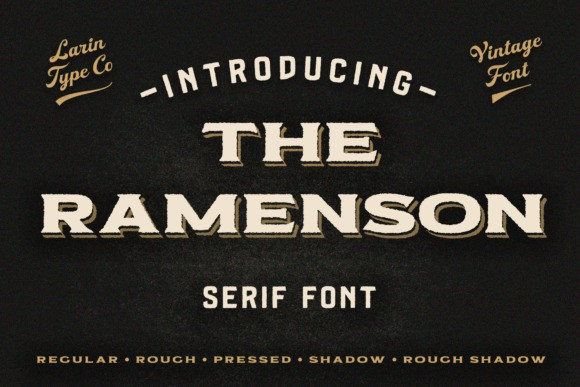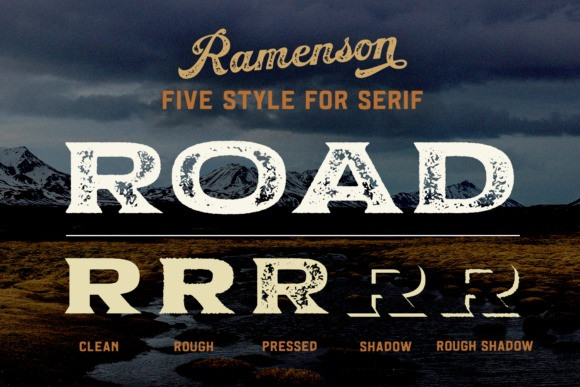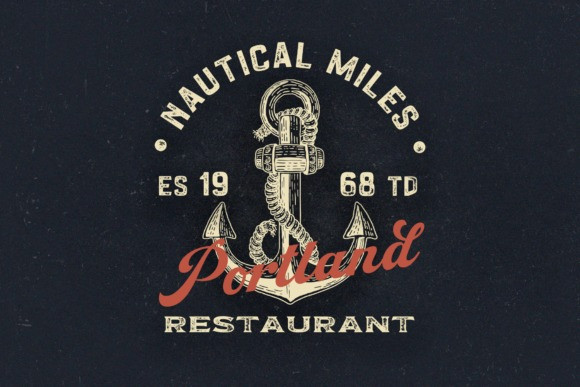
Ramenson Font
Ramenson is a vintage and bold serif font. It has a beautiful and balanced character, that fits well with the large design pool. This font is PUA encoded which means you can access all of the glyphs and swashes with ease.